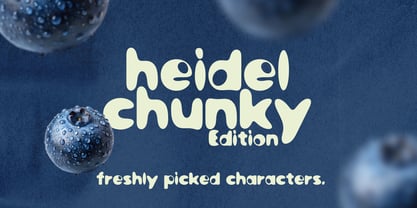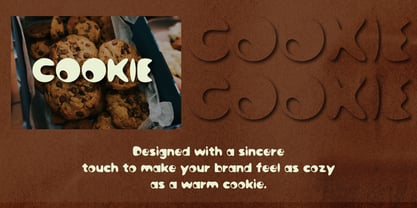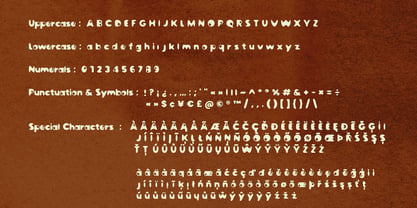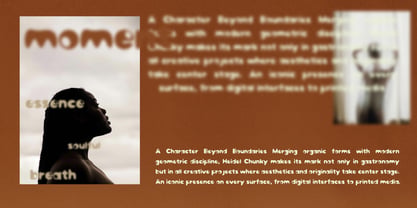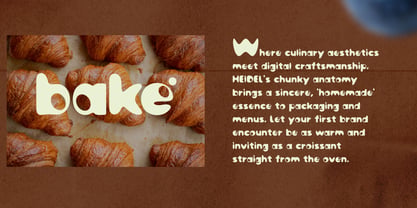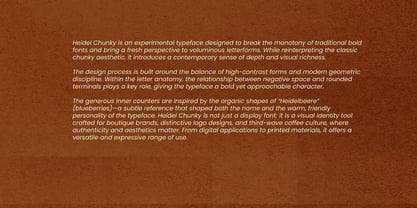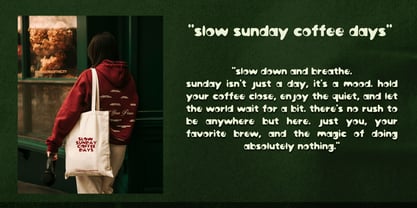
Heidel
von Mmx Studio
Die Schriftfamilie Heidel wurde von Meriç Akdoğan entworfen und von Mmx Studio veröffentlicht. Heidel enthält 1 Stile. Mehr über diese Familie
Heidel Chunky is an experimental display typeface designed to break the monotony of traditional bold fonts and bring a fresh perspective to chunky, voluminous letterforms. Reinterpreting the classic chunky aesthetic, it introduces a contemporary sense of depth, softness, and visual richness. The design is built on a balance between high-contrast forms and modern geometric discipline. Within the letter anatomy, the dialogue between generous negative space and rounded terminals creates a bold yet approachable character. The wide inner counters are inspired by the organic shapes of Heidelbeere (blueberries)—a subtle reference that influenced both the name and the warm, friendly personality of the typeface. Designed primarily as a display font, Heidel Chunky works perfectly for logo design, branding, boutique identities, packaging, posters, and third-wave coffee culture, where authenticity and visual character are essential. From digital applications to printed materials, it offers a versatile and expressive typographic presence.